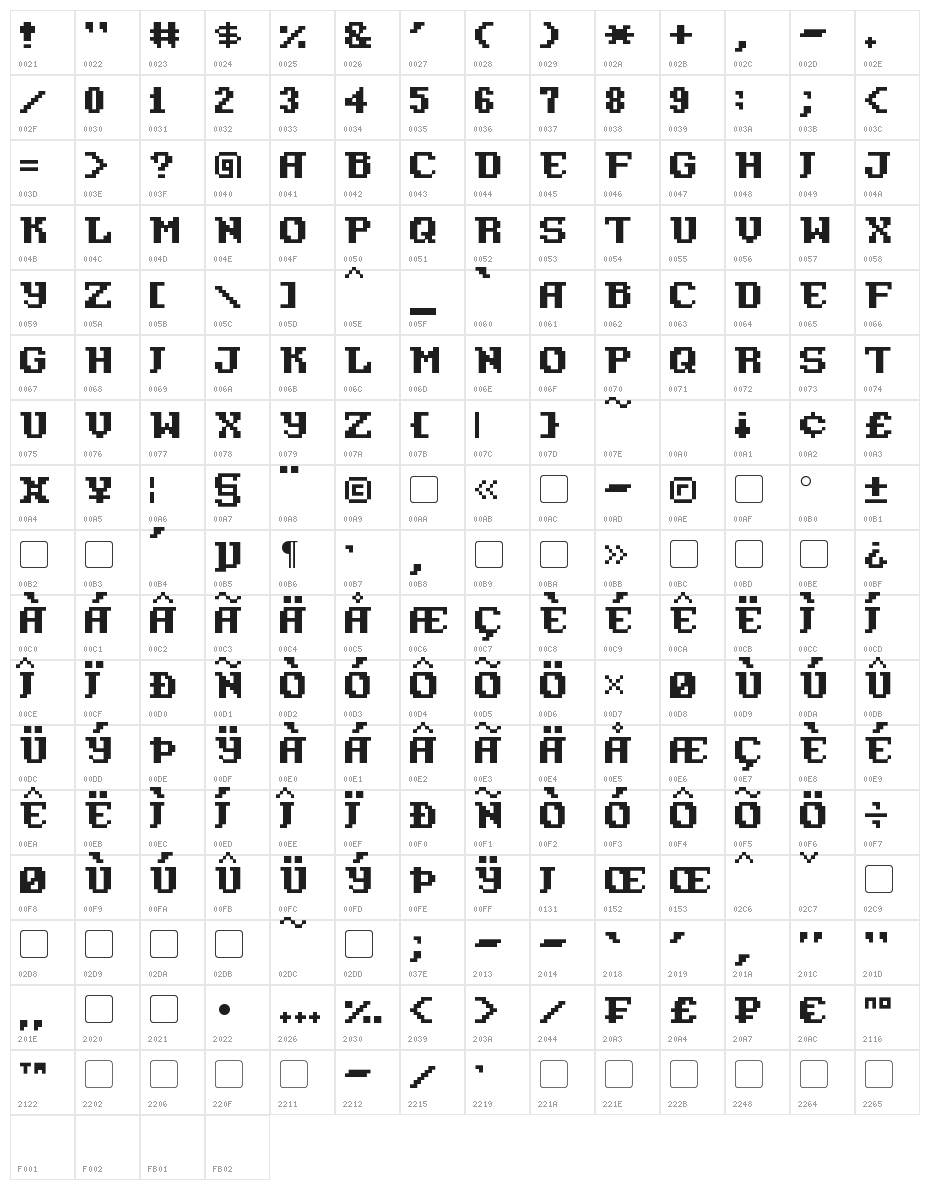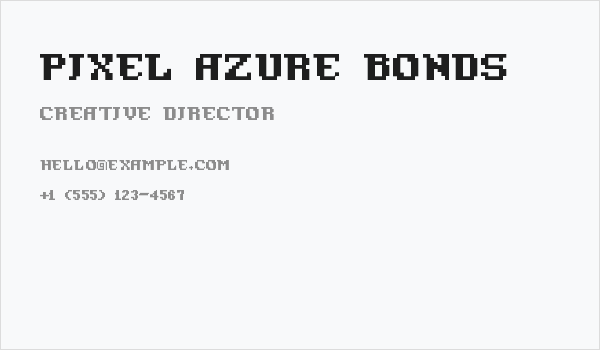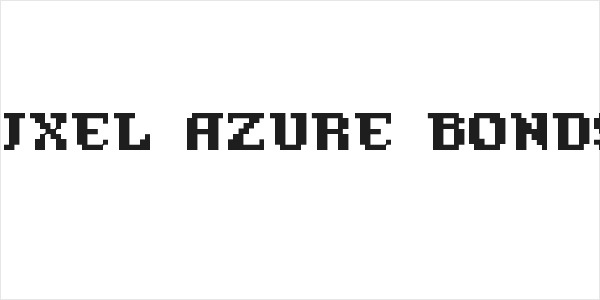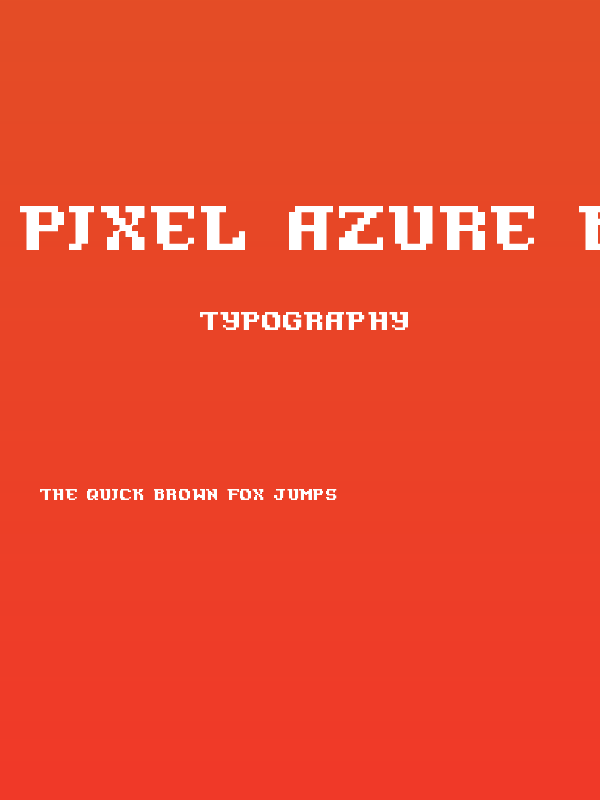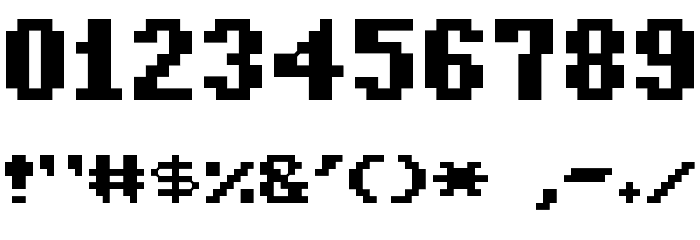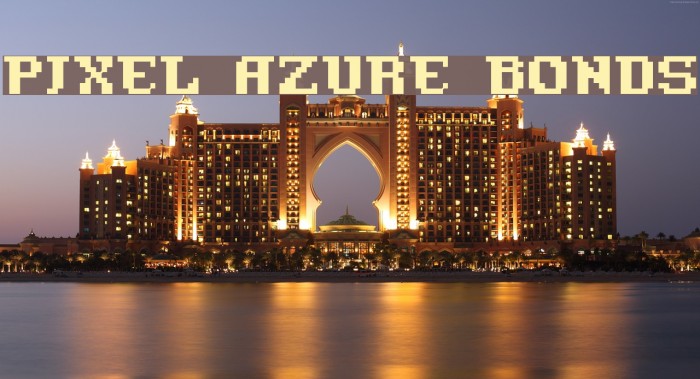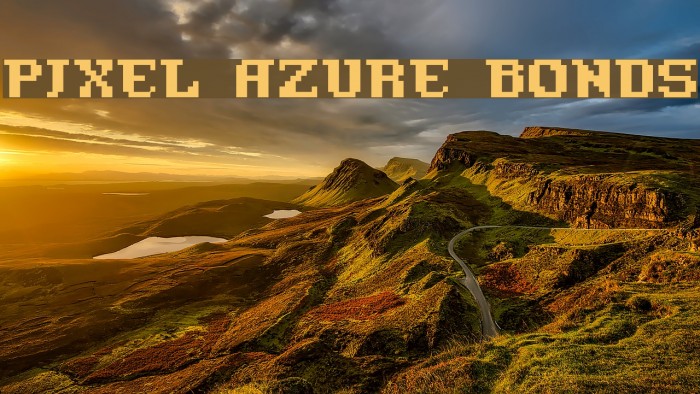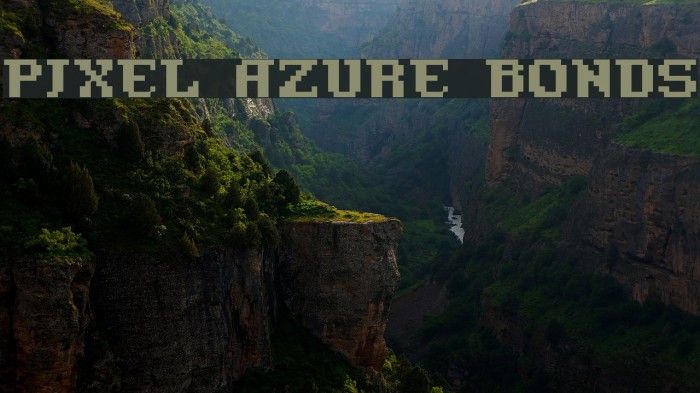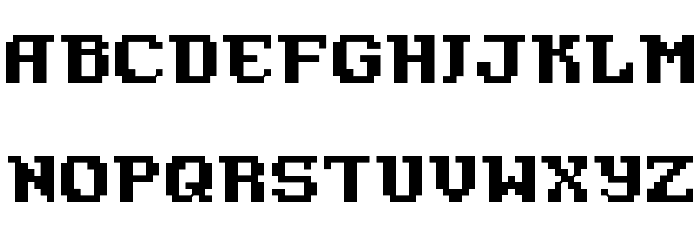
Pixel Azure Bonds Font
Pixel Azure Bonds Description
This font features a bold, pixelated design reminiscent of early digital displays and video games. Each character is constructed with a blocky, grid-like structure, giving it a distinctly retro and digital aesthetic. The uppercase and lowercase letters maintain a consistent width, contributing to a uniform appearance across text. The numerals and special characters follow the same pixelated style, ensuring visual coherence. This font's nostalgic charm makes it ideal for projects seeking a vintage digital look.
| Use Case | Logos, Headlines, Digital Art |
| Proposed Projects | Ideal for video game design, retro-themed posters, digital art, and any project requiring a vintage digital look. |